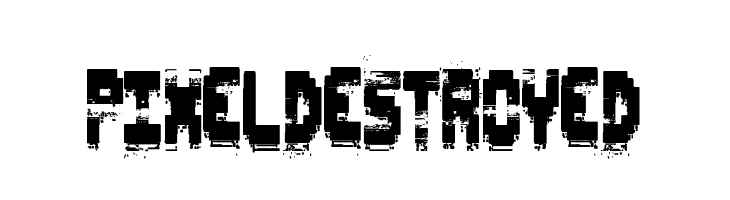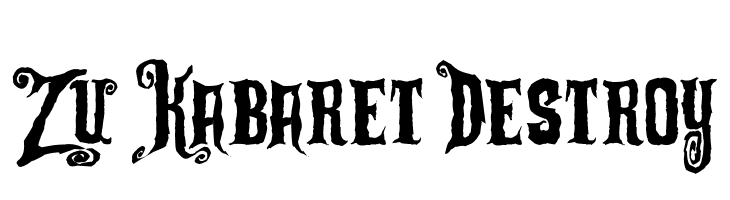
A narrow, edgy font with elongated characters and sharp angles.
A bold, distressed font with a rugged, vintage appearance.
A bold, fragmented font with a dynamic and edgy appearance.
A bold, explosive display font with chaotic, jagged shapes.
A bold, distressed font with a grunge, stamped appearance.
A bold, distressed font with a rugged, grunge aesthetic.
A bold, distressed font with a grunge texture and rugged appearance.
A decorative, theatrical font with vintage cabaret flair.
A bold, distressed font with a pixelated, grunge-like appearance.